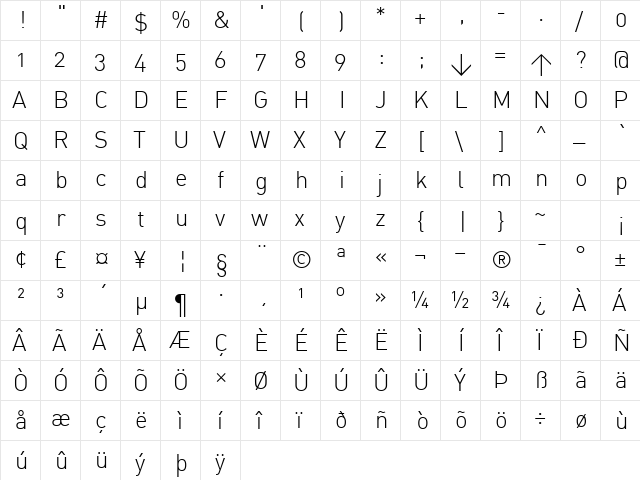
DIN LightAlternate Font Preview
DIN LightAlternate
DIN LightAlternate Font Details
| Style | LightAlternate |
Design Context for DIN Typeface
DIN offers clean, dependable letterforms without strong stylistic allegiance, making it a practical choice for designers who need flexibility. Its slender proportions lend an understated elegance to any composition.